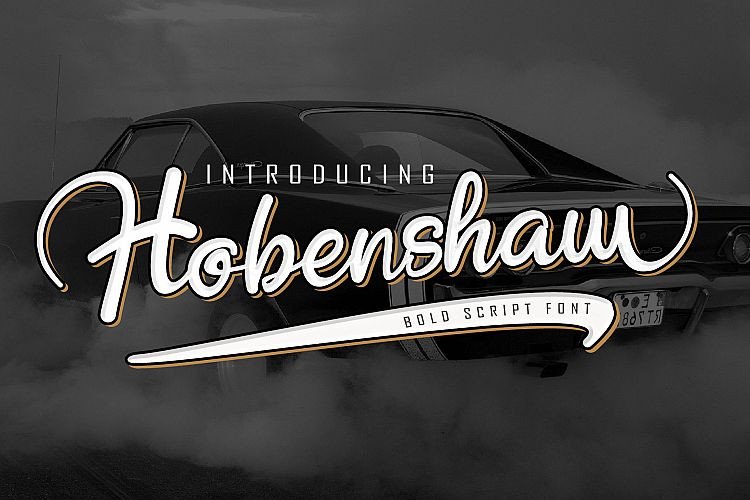
Hobenshaw Script Font
Hi designer! This is a bold script font, a especially distinctive, editorial and elegant font, which has been complemented by surprising stylistic variations. Introducing Hobenshaw Script Font. Hobenshaw designed and shared by letterara. It’s a hand drawn font. This font includes all upper and lower case standard character, punctuation, numerals and alternative. You can create perfect and unique design of your wedding postcard, branding, invitations, quotes, prints, and many more.